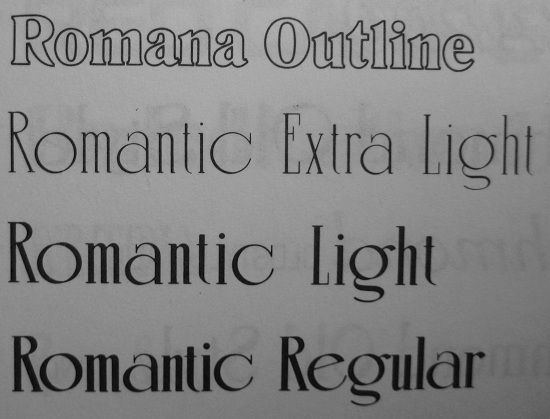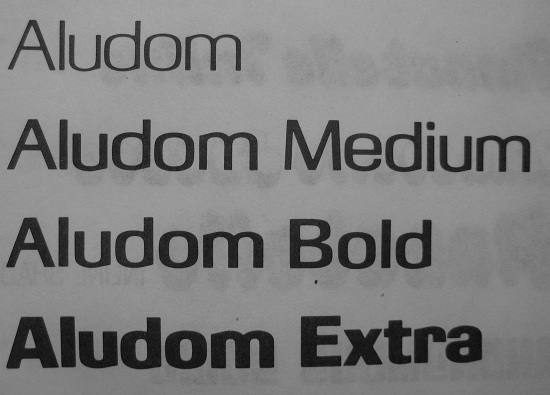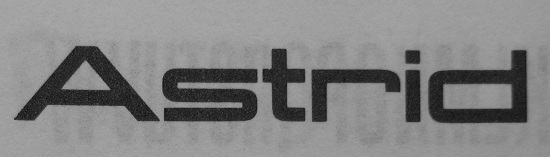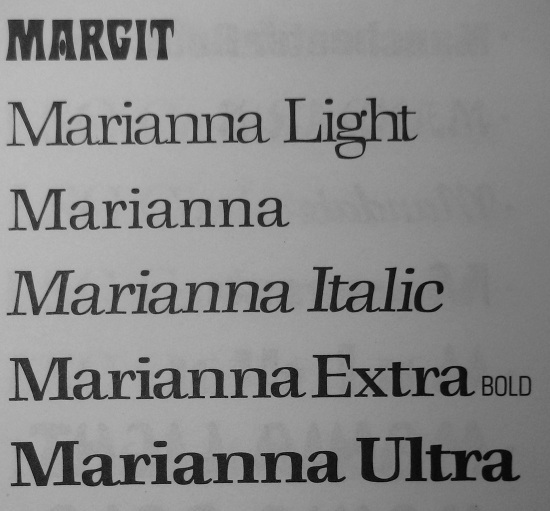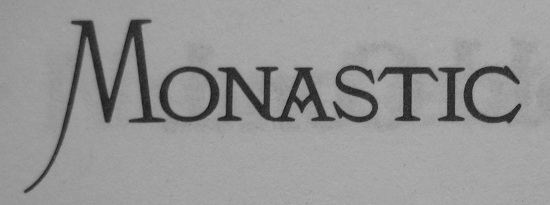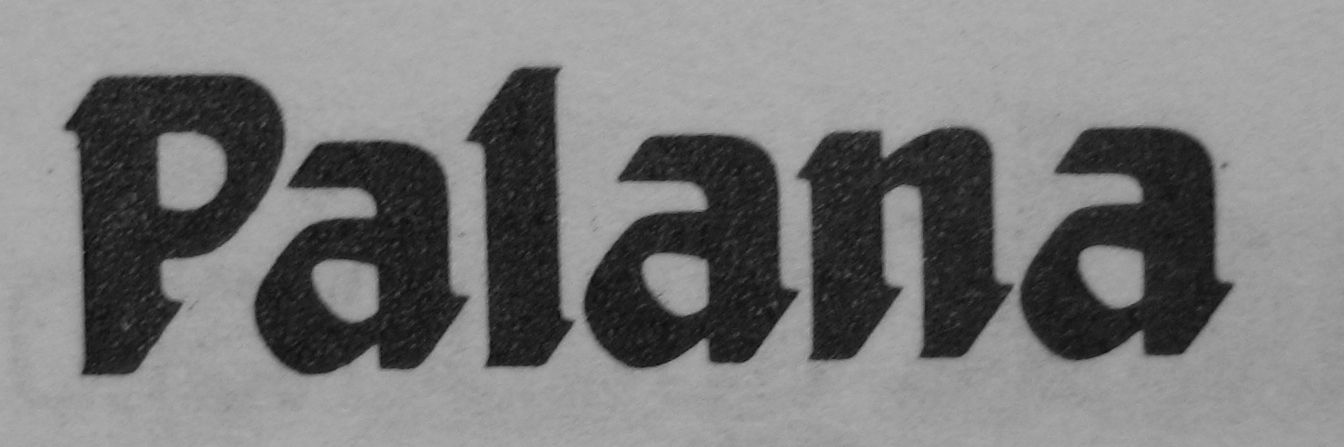
Phillies Script / Phillis specimen?
Does anyone have a full specimen for Phillies Script and Phillis as shown in these two images?
Also, who designed these two typefaces?
I did not realize Phillis is already digitized....
Just wondering, do you have the Fotostar specimen book? As I am also looking for some other specimens which I could not find any info...
I might be able to help with US specimens. Post some of what you are looking for.
I have attached some specimens of the types I am looking for in this post.
Phillies Script is also known as Fulton Sign Script. It has already been digitized by URW++ under the Phillies Script name. I do not have a specimen of it.
Aludom is the pirated version of Modula from VGC. All the pirate did was reverse the name. If you or anyone you know has a VGC catalog you can get a full specimen from it. If not, I can scan it for you. All weights except the Medium have been previously digitized by FLF (Fluent Laser Fonts) under the name KasseFLF. There are also pirate versions of the KasseFLF fonts by others.
Monastic has previously been digitized under several names. Is is an old metal face so I may have a specimen if you still need it. You can get a free download of K22 Monastic from dafont.com or pay for another version at myfonts.com under the name Huruvida. It may have also been digitized by others.
Tulo is extremely retro, dating to the hippie days of the early 70s. There are similar fonts (Inkwell, Bottleneck, Bell Bottom (aka Maxwell) and Chwast Art Tone), all in digital form. There is also an old film lettering face, Orbit Extended (no lowercase) that has a similar look. Tulo has not been found digitized, possibly because the ROI might be close to zero.
Palana was originally a Letraset font. Letraset was acquired by Monotype; I don't know if it has been digitized.
The others I do not have any references on.
Thank you so much for the information. Do you happened to know any of these as well?
I did discover I have a specimen of Tulo as issued by one of the pirate companies under the name Tushy.
Moon Light, from your previous post, was originally issued by VGC, named Moon, in four weights.
Margit is a ripoff of Alphabet Innovations' Harem with some changes to one or more of the letters. Harem dates to 1969.
Marianna is a ripoff of Antikva Margarit, which was a VGC award-winning original.
Astrid is, I believe, the original name for the font although I don't know who produced it.
Lock Outline is just an outline version of the font Maxwell* with some minor changes. Omaha is a slightly lighter more condensed version of Maxwell. A third font, Newton, is bolder and similar in style.
Romantic is a ripoff of Romantique from Headliners International. Headliners produced it in five weights.
The others I don't have any reference on. Since Typophile.com is unavailable for the time being, you could try the Font ID forum at dafont.com. There are folks there who have more reference material than I do. When Typophile.com gets their site redesign done, their Font ID forum has some very expert folks who can ID just about everything.
*Not to be confused with the font named Maxwell I mentioned in the first post. Two different fonts with the same name.
Thanks again for the informations on some of the typefaces. Just wondering if it is possible for you to upload the Tulo/Tushy specimen, and if available, Margit/Harem as well?
I will try to add something to the excellent information already provided.
Astrid looks like the typeface digitised by URW as Aggie (except for the narrower |t|):
There are several digitisations of Romana (AKA Roemisch, Romanisch, Romaans, Elzevir, De Vinne...), none of them outlined.
Update: I just discovered that Harem was digitized in the 90s by The Font Company, so very likely it is available from URW++ because I believe they ended up with that collection after Precision Type went out of business.